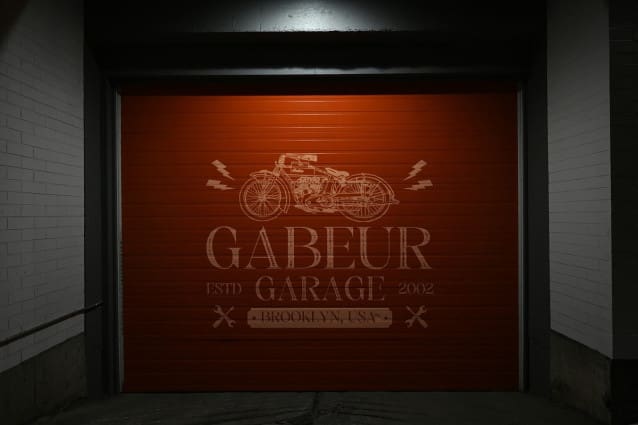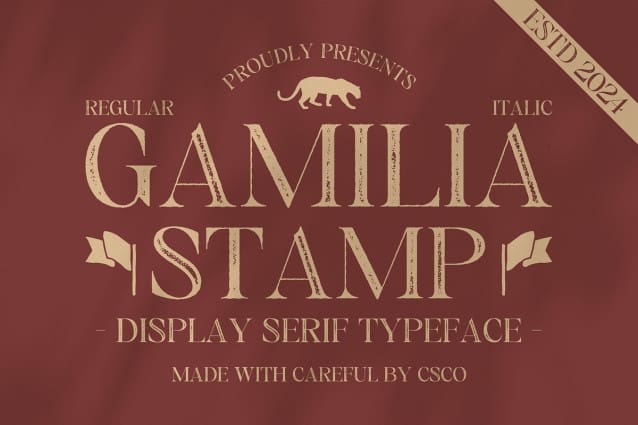
Gamilia Stamp Font
Gamilia Stamp Font is a modern serif font featuring a slim and clean design that exudes elegance and sophistication. Wrapped in a distinctive stamp effect, it seamlessly blends classic elements with an artistic touch, resulting in a unique character that enhances any design.
Sophisticated Design for Timeless Appeal The slender letterforms of Gamilia Stamp create a refined appearance, perfect for projects that require a touch of class. This font is ideal for invitations, branding, and print materials, highlighting elegance while offering a nostalgic, vintage vibe that resonates with contemporary aesthetics.
Versatile Applications for Creative Projects Gamilia Stamp’s versatility makes it suitable for a wide range of applications, from upscale event invitations to stylish branding materials. Its unique character adds charm and sophistication, making it an excellent choice for designs aiming to convey beauty and refinement in both digital and print formats.
Artistic Flair with Classic Roots Infuse your projects with the artistic flair of Gamilia Stamp, where modern design meets classic roots. This font not only captures attention but also leaves a lasting impression, making it the perfect choice for creatives looking to elevate their work with a touch of elegance.